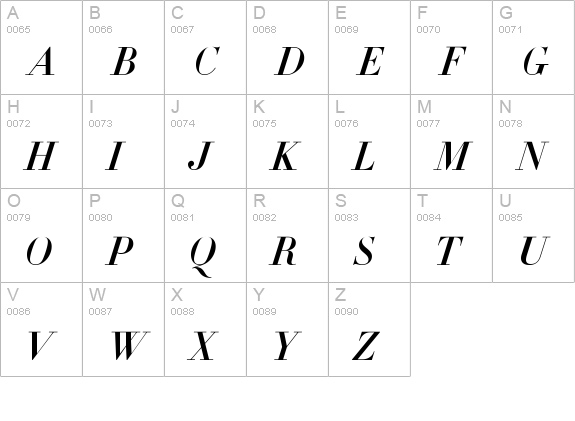
Didot-HTF-M16-Medium-Ital is a balanced, medium-weight variant in the Didot typeface family \xE2\x80\x94 well suited to sub-headlines, navigation, and balanced editorial work.
Didot-HTF-M16-Medium-Ital is a timeless and elegant font that exudes sophistication and grace. With its sleek lines and stylish curves, this font is perfect for adding a touch of class to any design project. The medium weight of the font strikes the perfect balance between boldness and subtlety, making it versatile for a variety of applications. What sets Didot-HTF-M16-Medium-Ital apart is that it is available for free download at FontsMarket.com. This means that you can easily access this high-quality font without any cost, making it a valuable addition to your font library. Whether you're working on a graphic design project, creating invitations, or designing a website, Didot-HTF-M16-Medium-Ital is sure to elevate your work with its timeless charm and sophistication. Download this font today and add a touch of elegance to your designs.